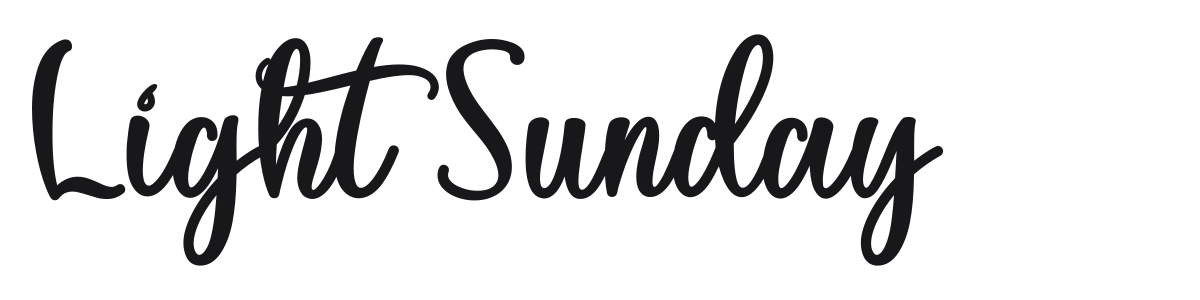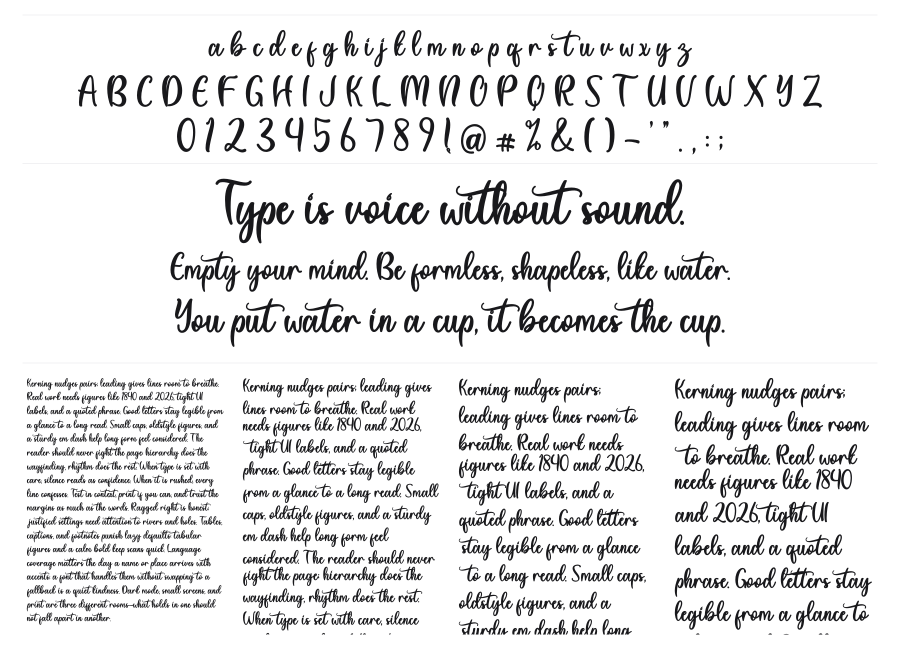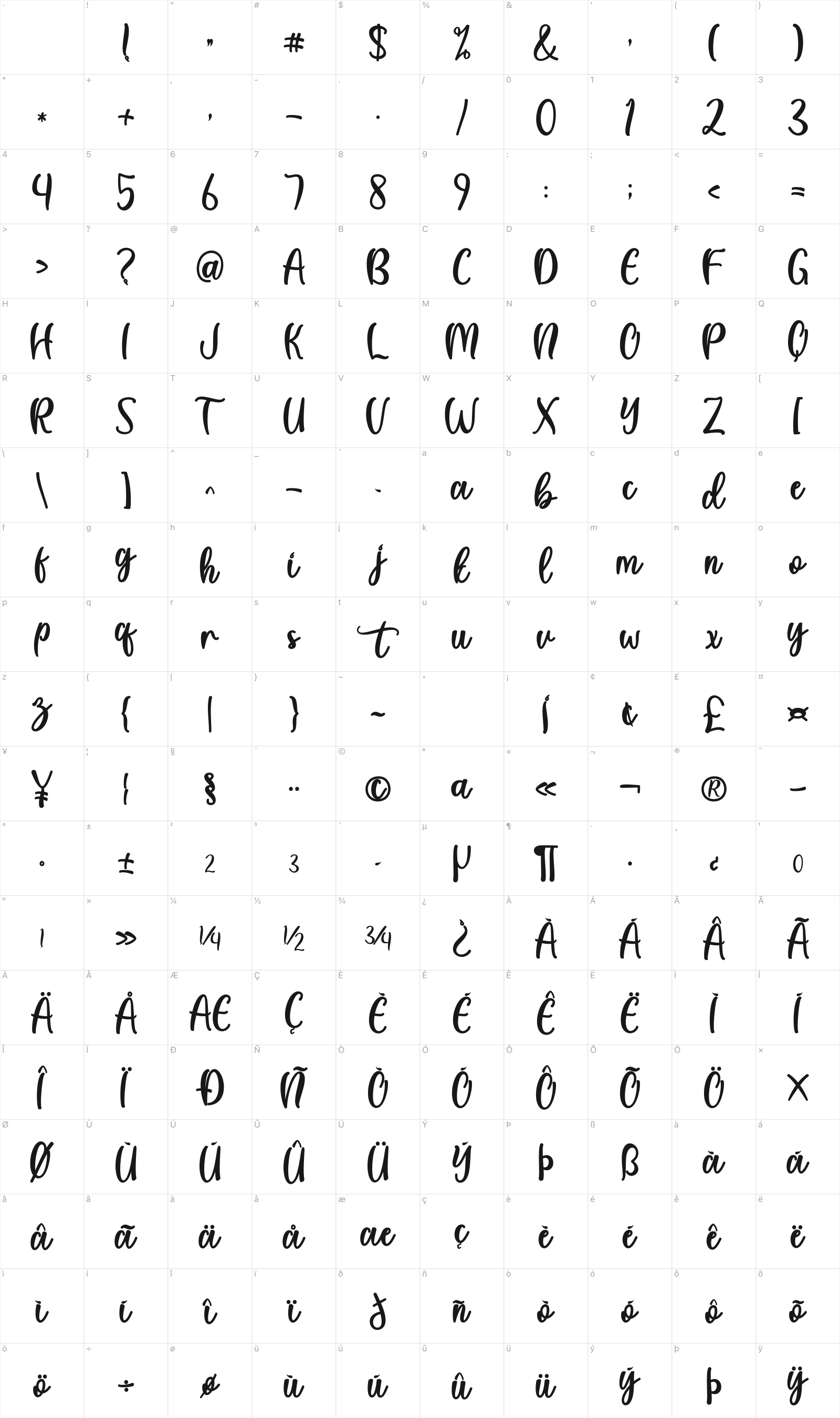
Light Sunday
Light Sunday is a bouncy casual script with sweeping loops and confident, connected strokes. It carries the warmth of genuine handwriting while staying polished enough for branding and packaging. The lively rhythm makes it particularly effective on labels, social graphics, and short headlines.